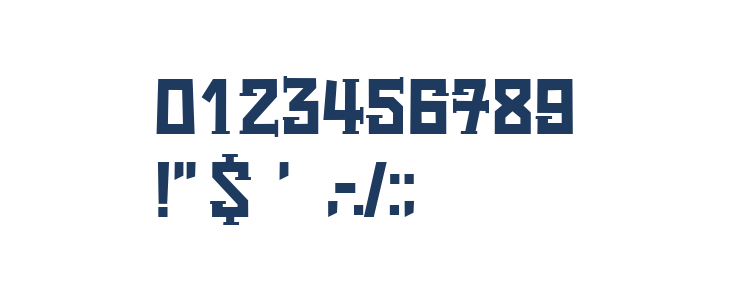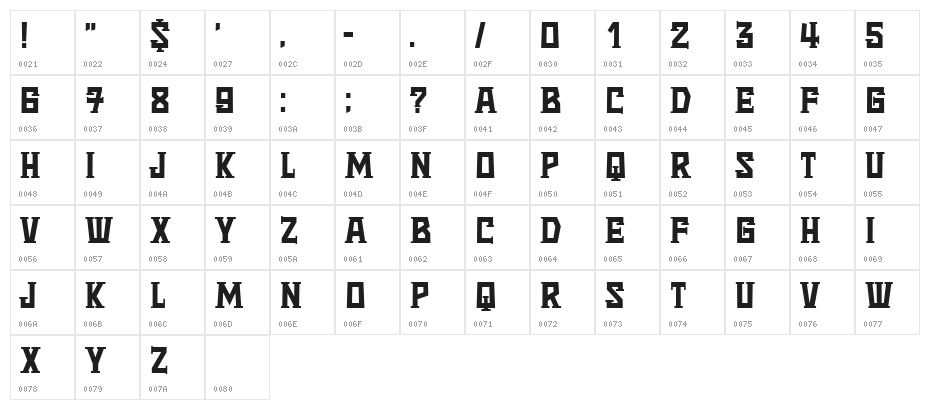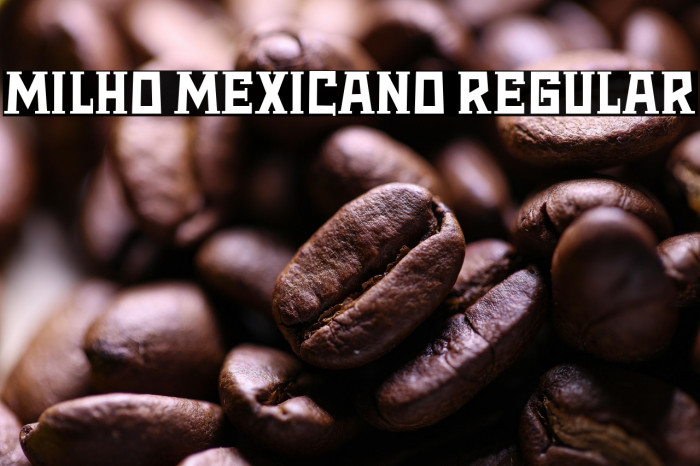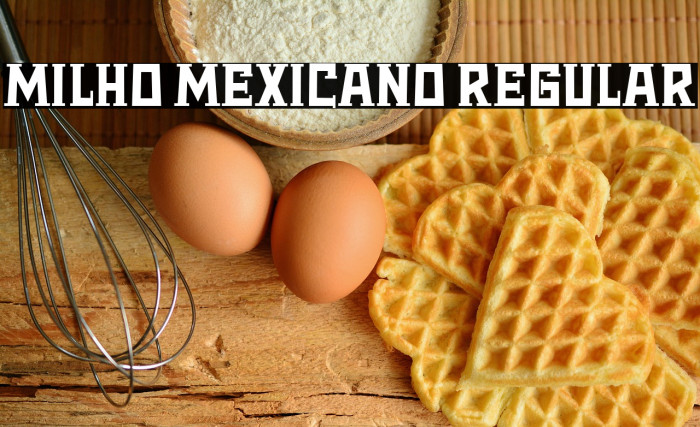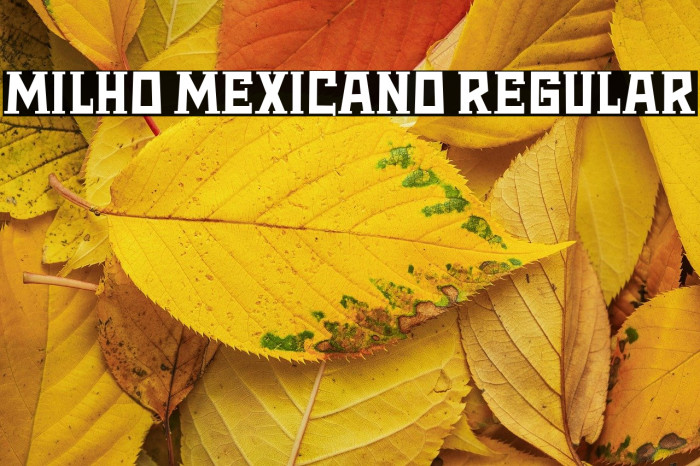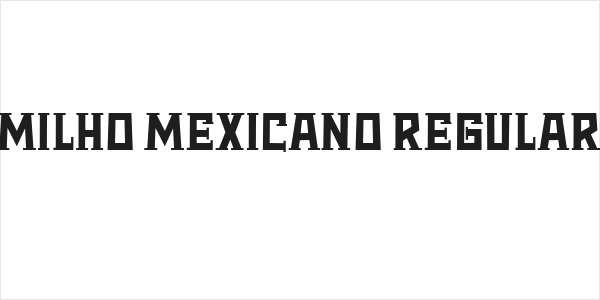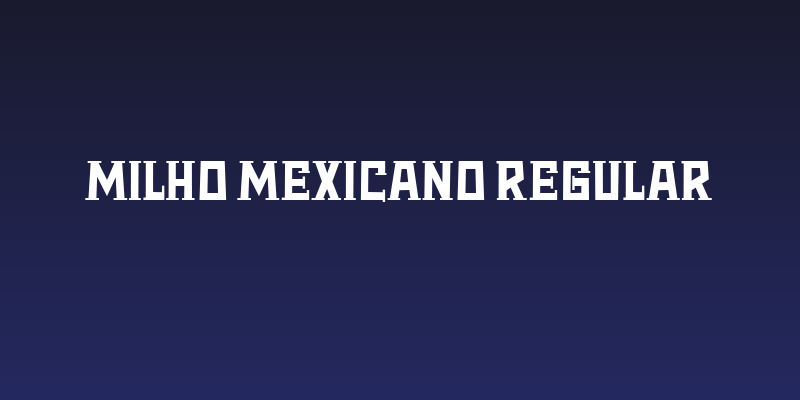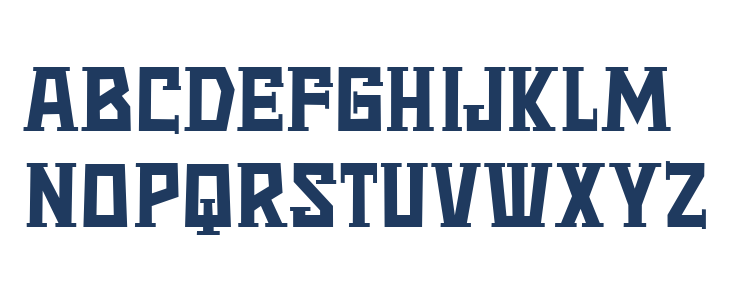
Milho Mexicano Regular Font
Milho Mexicano Regular Description
This font features a bold and striking design with a strong geometric influence. The characters are crafted with sharp angles and a distinct blocky appearance, giving it a commanding presence. The uppercase letters are particularly prominent, with a uniform height and width that contribute to its cohesive look. The lowercase letters maintain the same boldness, ensuring readability while retaining the font's unique style. Numbers and special characters are designed to match the overall aesthetic, making them suitable for a variety of uses. The font's boldness and geometric style make it ideal for attention-grabbing headlines and impactful designs.